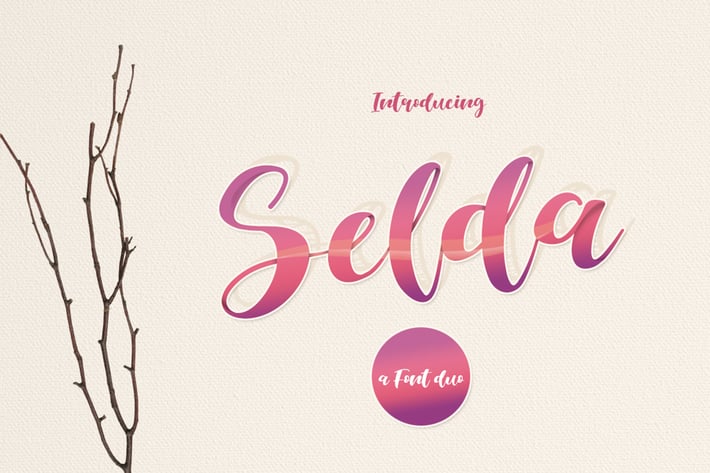
Selda Script Font Duo
Introducing, Selda Script a font duo modern calligraphy typeface with cheerful theme for your fun project. Selda font includes awesome characters in 2 different styles: regular and sketch. Selda script font suitable for logo, branding, greeting card, poster and any design that you create.
OpenType Features
Multilingual support ÀÁÂÃÄÅÇEÈÉÊËIÌÍÎÏNÑOØÒÓÔÕÖUÙÜÚÛWYÝŸ?ŸÆ